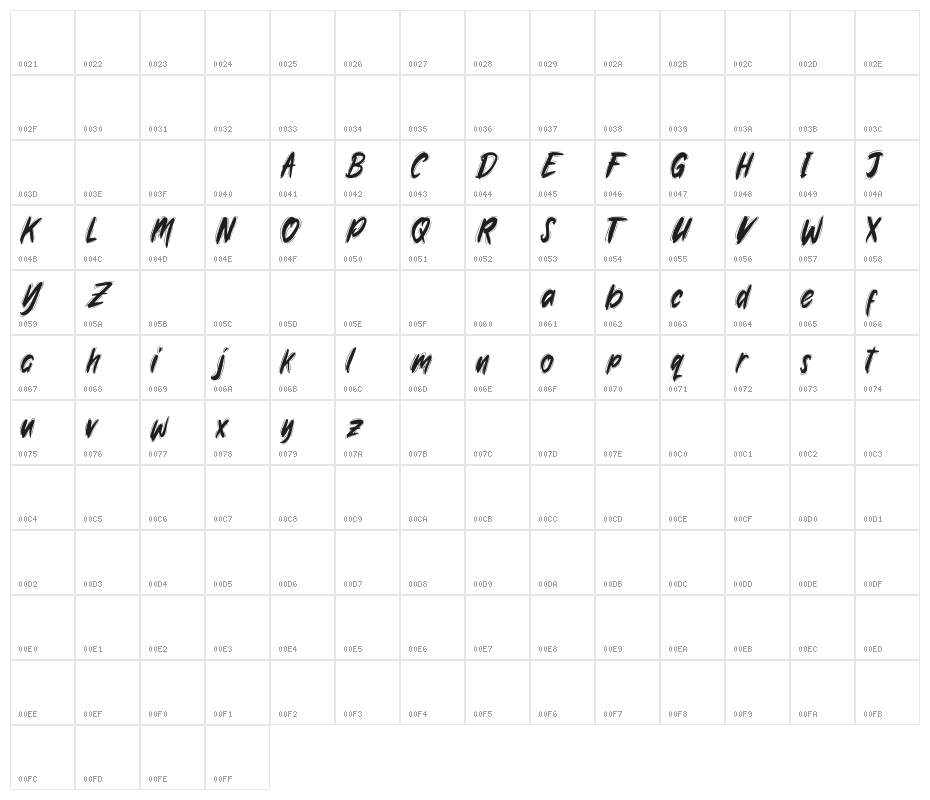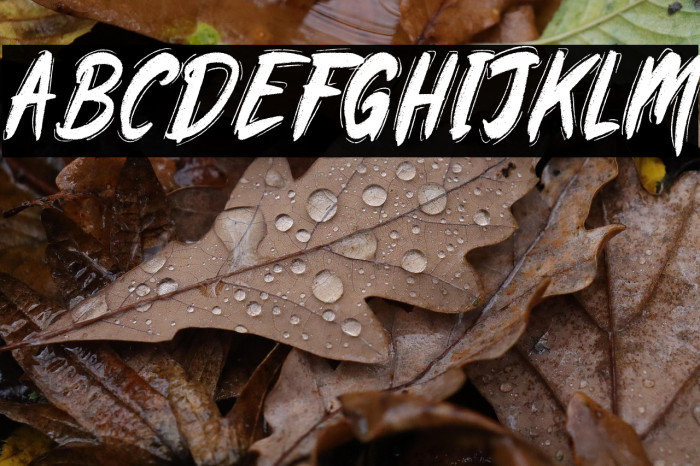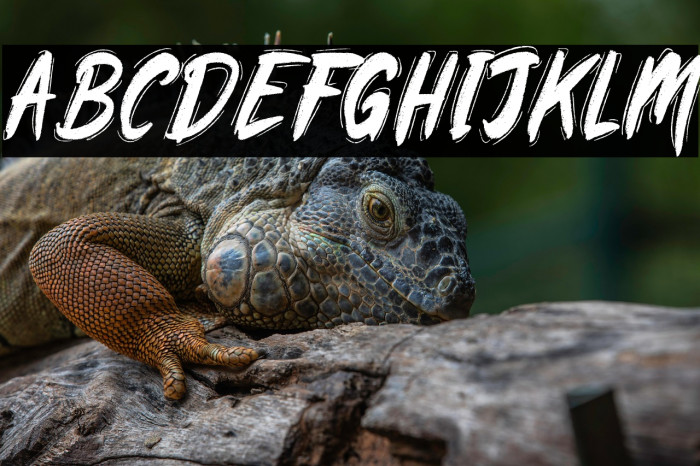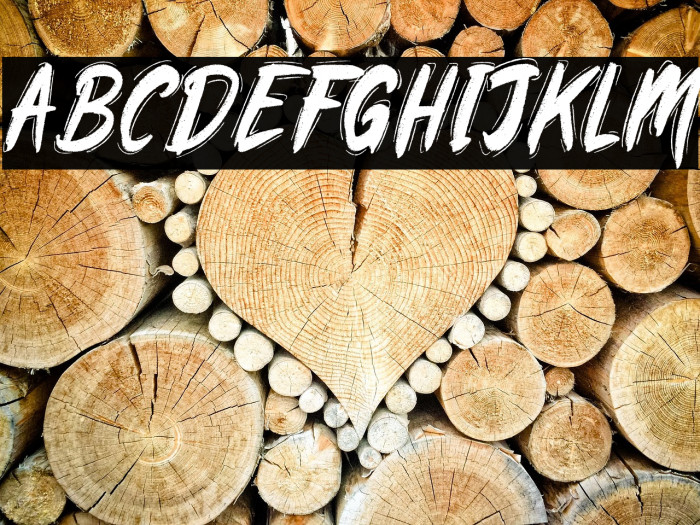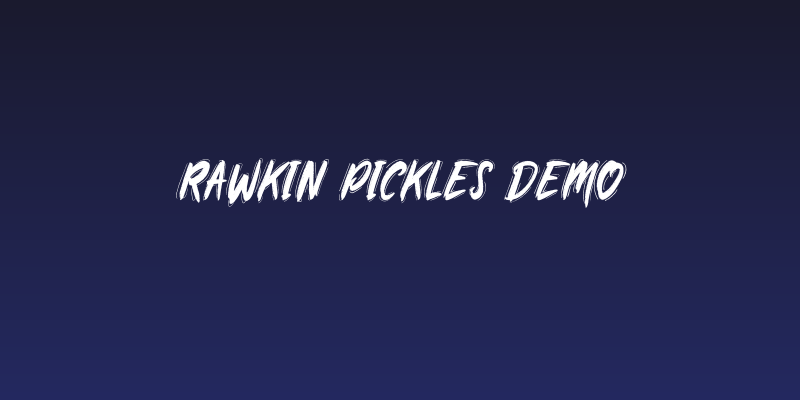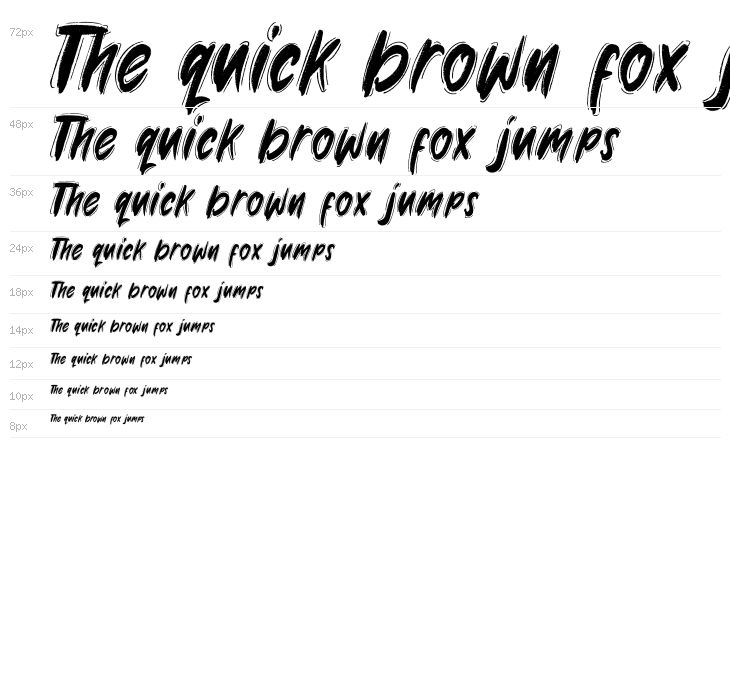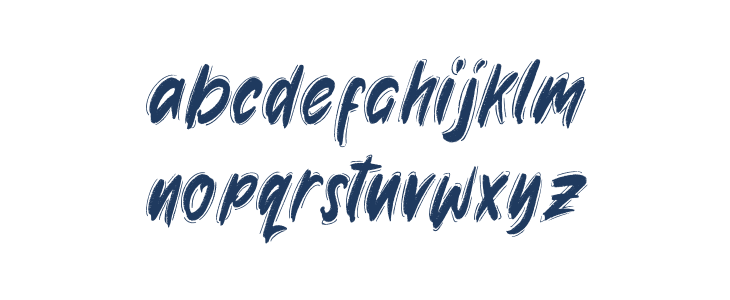
Rawkin pickles demo Font
Rawkin pickles demo Description
This font exudes a bold and energetic style, characterized by its brush-like strokes and dynamic movement. Each letter appears as if it has been painted with a swift, confident hand, giving it a sense of urgency and excitement. The uppercase and lowercase letters maintain a consistent style, with sharp angles and a slightly slanted orientation that enhances the feeling of motion. The font's rough edges and varying stroke thickness add a raw, edgy aesthetic, making it ideal for projects that require a sense of spontaneity and creativity. Its unique appearance captures attention and conveys a sense of individuality and flair.
| Proposed Projects | Perfect for posters, album covers, branding, and any creative project that needs a bold statement. |